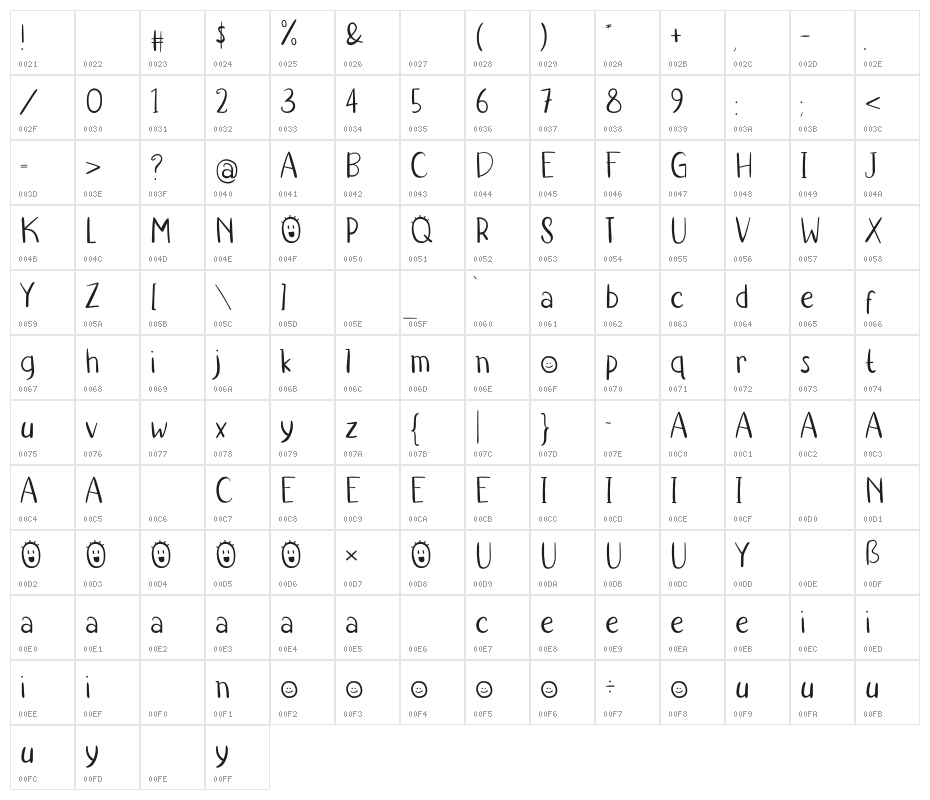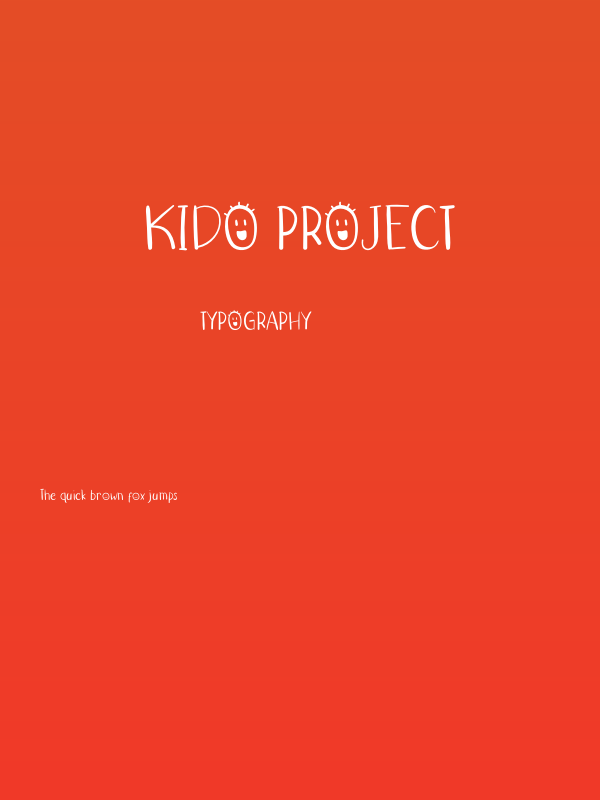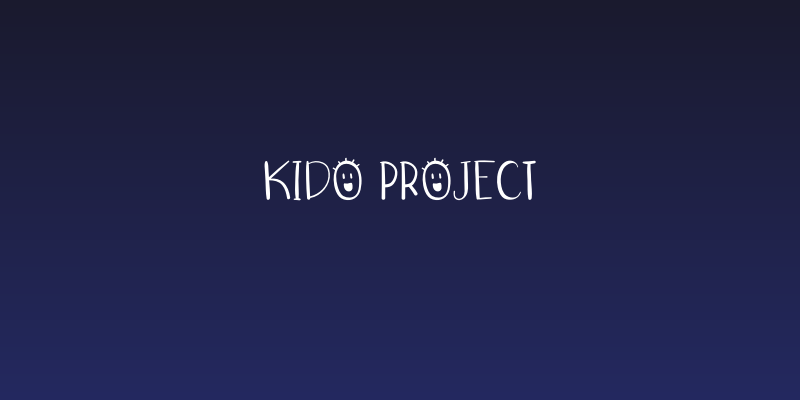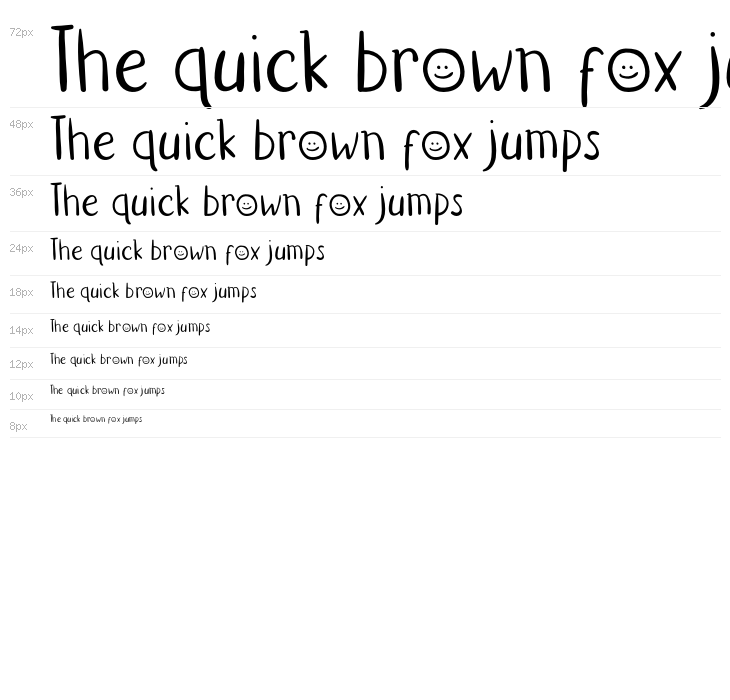
Kido Project Font
This playful and whimsical font features a hand-drawn style that exudes a sense of fun and creativity. The letters are slightly irregular, adding to the charm and informal feel. Uppercase and lowercase characters are distinct, with some letters incorporating unique elements, such as the smiley face in the letter 'O'. The numbers and special characters maintain the same playful aesthetic, making this font ideal for projects that require a lighthearted and approachable tone. The strokes are consistent in width, providing a balanced appearance across all characters.
| Overall Style | Playful |
| Use Case | Logos, Headlines, Posters |
| Proposed Projects | Ideal for children's books, playful branding, greeting cards, and creative posters. |